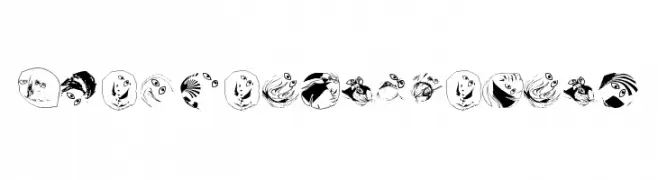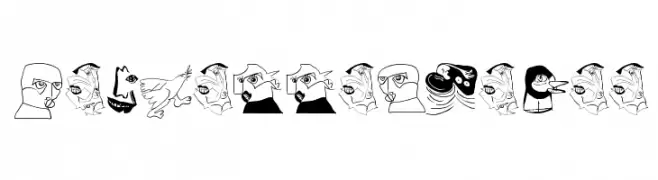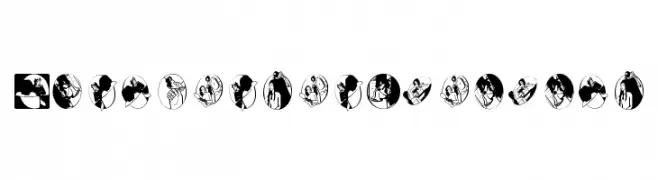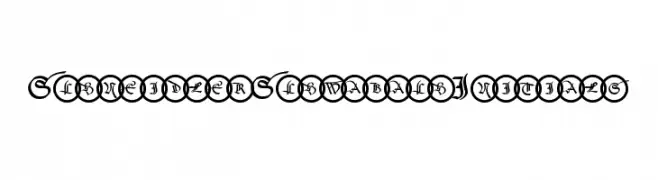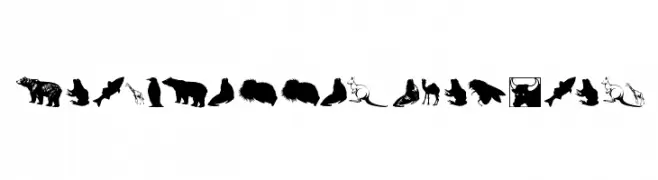
Illustrative, hand-drawn font with each character as a unique scene in a circle.
An abstract, artistic design with fractal-like patterns.
Decorative font with African and spiritual icon illustrations.
Animal illustration font with each glyph as a unique wild animal.
A dynamic, expressive handwritten font with fluid strokes and playful character.
An artistic font with abstract, whimsical character illustrations.
A pictographic, hand-drawn font inspired by ancient cave art.
Animal silhouettes in a bold, decorative style.
Intricate, glyph-inspired font with detailed, decorative characters.